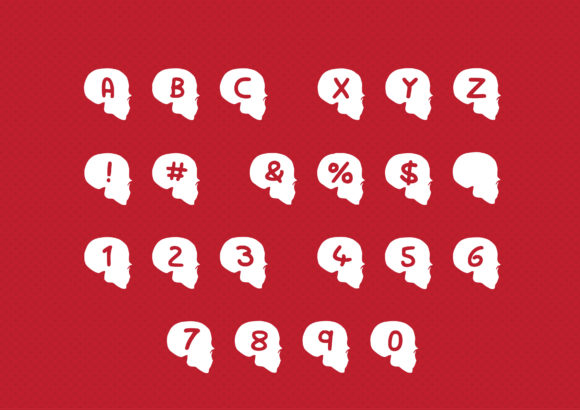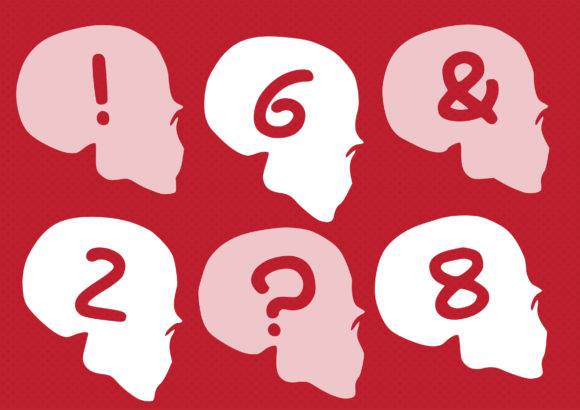
Introduction to Play Skull Font
As a designer, there’s nothing quite like the thrill of discovering a new, high-quality design resource that sparks creativity and brings a project to life. I still remember the day I stumbled upon the Play Skull Font – it was love at first sight! The whimsical, hand-drawn letters nestled inside cute skull silhouettes had me hooked, and I knew I had to incorporate it into my next creative project.
With its transparent background and bold, playful style, the Play Skull Font is perfect for designers looking to add a touch of Halloween magic to their work. Whether you’re working on a spooky storybook, a scary movie poster, or just want to add some whimsy to your social media graphics, this font is a valuable asset in your design arsenal.
Key Features of Play Skull Font
- High-quality design resource for creative projects, ideal for use in graphic design, digital art, and typography.
- Unique and bold design, featuring a transparent background and a distinctive skull motif.
- Perfect for adding a touch of edginess and creativity to designs, logos, and branding materials.
Honest Review: Play Skull Font
As a designer, I’m always on the lookout for high-quality design resources to elevate my creative projects. The Play Skull Font is a unique and eye-catching addition to any design, and I’m excited to share my honest review.
- Unique and playful design: The Play Skull Font is perfect for adding a touch of whimsy to your designs.
- High-quality graphics: The font is crisp and clear, making it perfect for use in a variety of applications.
- Transparent background: This makes it easy to use the font on top of any background or image.
While the Play Skull Font is a great addition to any design, there are a few limitations to consider:
- Limited character set: The font only includes a limited set of characters, which may limit its use in certain applications.
- Not suitable for formal designs: The playful design of the font may not be suitable for formal or professional designs.
Overall Impression
Overall, I’m impressed with the Play Skull Font. It’s a fun and unique addition to any design, and its high-quality graphics make it perfect for a variety of applications. While it may have some limitations, it’s a great resource for designers looking to add some personality to their work.
Play Skull Font
Tips for Getting the Most Out of Play Skull Font
To get the most out of the Play Skull Font, experiment with different font sizes, colors, and combinations to find the perfect look for your project. You can also use the font in conjunction with other design elements, such as images and graphics, to create a unique and eye-catching design.
Common Use Cases for Play Skull Font
The Play Skull Font is ideal for use in a variety of creative projects, including social media graphics, presentations, and documents. It’s also a great choice for designers who want to add a touch of personality to their designs without breaking the bank.